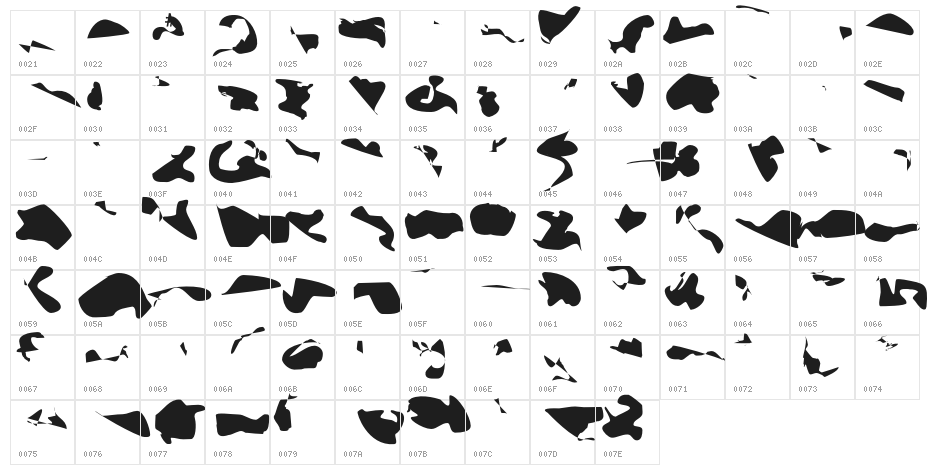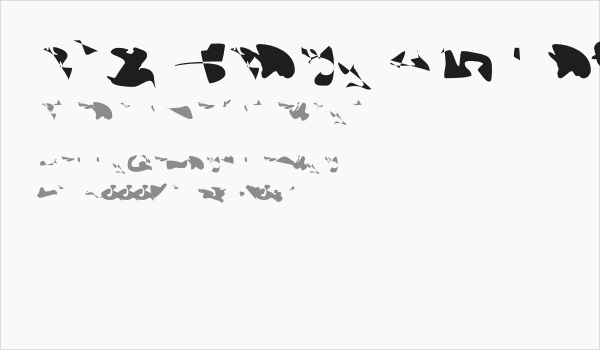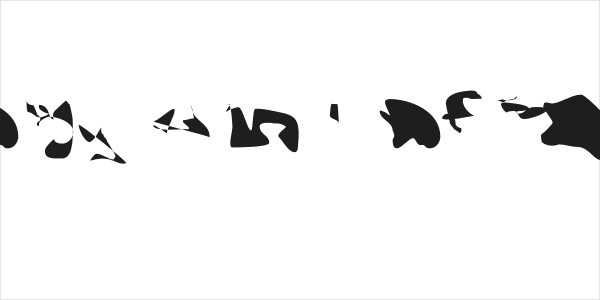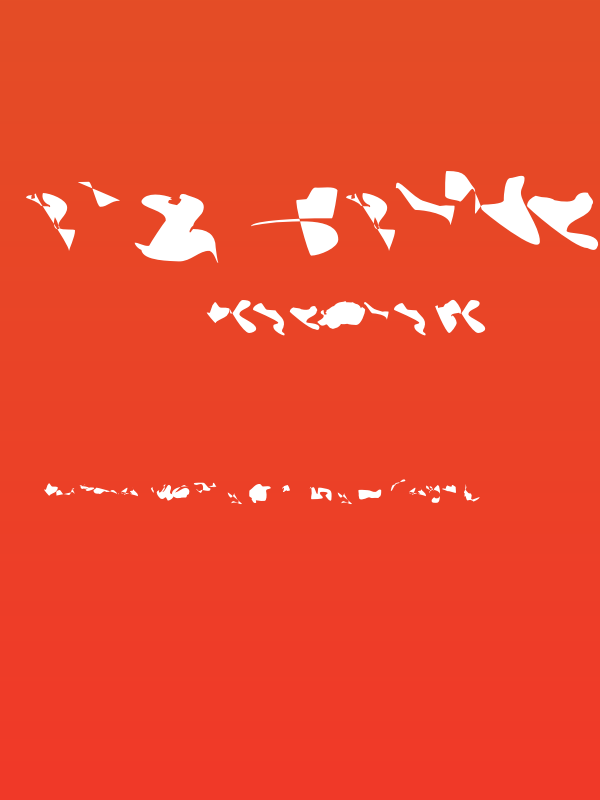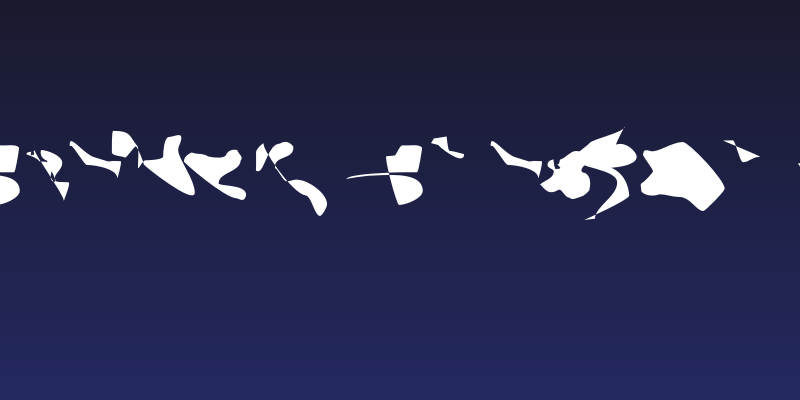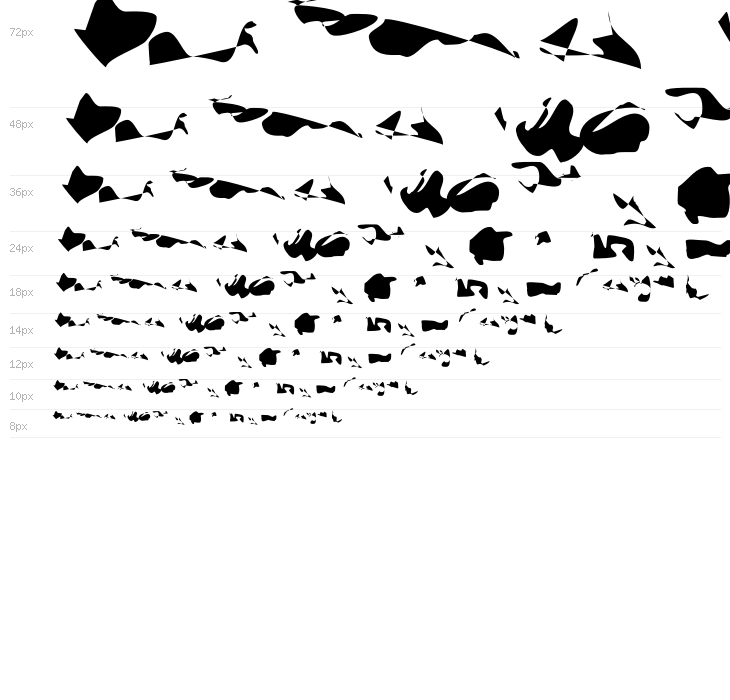
CISF Camouflage Kit III Font
CISF Camouflage Kit III Description
This design features abstract, irregular shapes that mimic the appearance of camouflage patterns. The elements are scattered and fragmented, creating a sense of movement and disruption. The shapes are bold and dynamic, with a high contrast between the black forms and the white background. This style is reminiscent of military camouflage, designed to blend into natural environments by breaking up outlines and confusing the eye.
| Use Case | Decorative elements, Themed designs, Fashion prints |
| Proposed Projects | Ideal for projects requiring a military or tactical theme, such as fashion design, graphic design for outdoor gear, or themed event decor. |